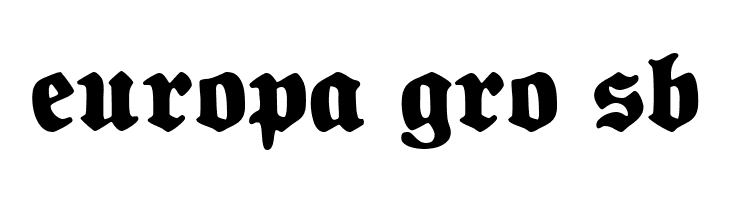
A modern, minimalistic set of travel-related icons for clear communication.
A versatile set of modern, outline-style icons for travel-related themes.
A playful and decorative collection of medical-themed symbols and illustrations.
A decorative Blackletter font with intricate flourishes and Gothic style.
Medieval-themed illustrative display set with hand-drawn engravings.
A bold, blackletter-style font with sharp, angular edges.
An intricate, culturally influenced decorative font with flowing lines and sharp angles.
A decorative and abstract font with intricate, artistic characters.
An elegant, calligraphic script inspired by fantasy languages.
An ornate and traditional font with intricate, decorative letterforms.
A traditional blackletter font with ornate, medieval-style letterforms.
A bold Blackletter font with intricate, angular letterforms and a gothic aesthetic.
A decorative blackletter font with intricate and ornate letterforms.
An ornate and decorative font with a fantasy-inspired design.
A bold and ornate blackletter font with historical elegance.
A sophisticated font combining historical elegance with modern design elements.
An ornate, decorative typeface with intricate floral patterns in each letter.
A traditional blackletter font with intricate, angular designs and a historic feel.
A dramatic and ornate Blackletter font with intricate flourishes.
A decorative blackletter font with ornate and intricate designs.
A bold, blackletter font with sharp, angular strokes and a Gothic aesthetic.
A traditional blackletter font with ornate, angular letterforms.
A traditional Blackletter font with ornate, angular letterforms.